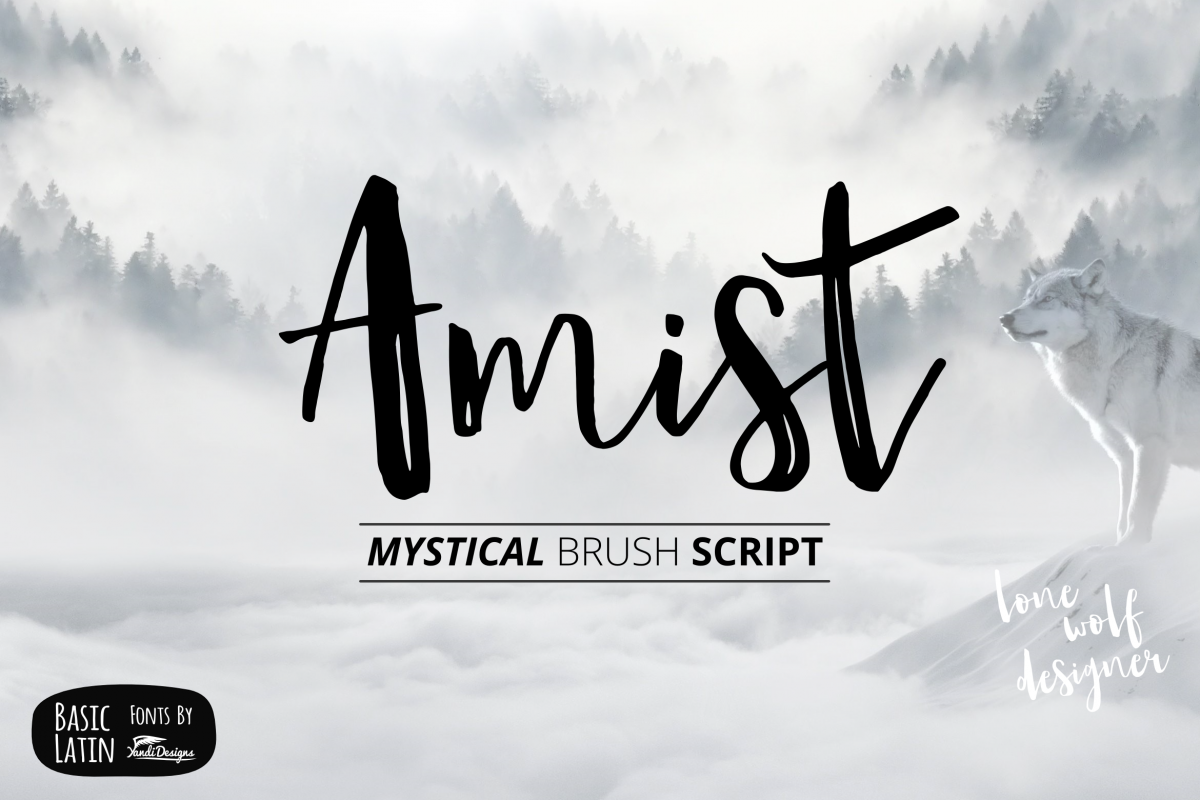
Amist Mystical Script Fonts
Amist Mystical Style Font
Fantasy and modern font , suitable for many project , quotes, logo , heading , title etc.
Basic Latin (Standard English character , number, symbol)